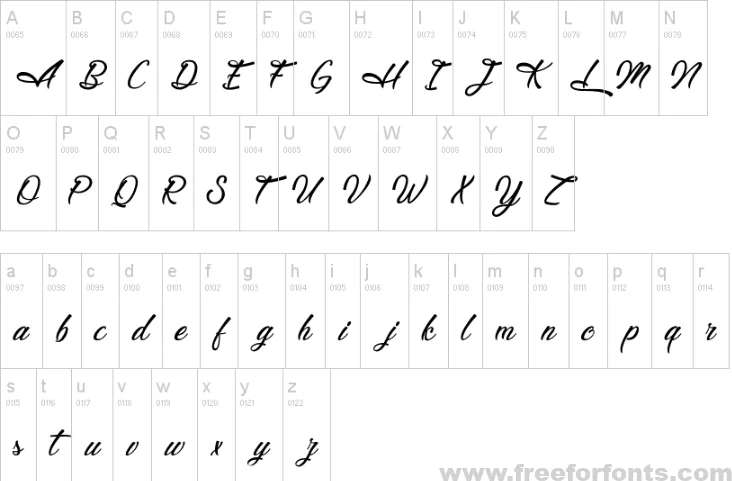
Legendary Hollywood Font
Legendary Hollywood Font is perfect for a wide range of design projects including movie posters, entertainment branding, film festival graphics, theater productions, red carpet event invitations, cinematic logos, showbiz marketing, and glamorous social media content. Its dramatic character makes it an exceptional choice for projects that celebrate the golden age of cinema and the timeless allure of Hollywood elegance.
What makes Legendary Hollywood Font exciting is its stunning ability to capture the grandeur and sophistication of classic Hollywood glamour through typography. The font features elegant letterforms with vintage-inspired details that evoke the golden era of cinema, creating instant nostalgia and cinematic prestige. Its captivating personality radiates star quality and entertainment magic, making it perfect for brands and projects that want to channel the iconic style, drama, and unforgettable charm of legendary Hollywood productions.
Legendary Hollywood Font comes in multiple font families including Regular, Bold, Light, Decorative, Art Deco variations, and ornamental embellishments. These diverse options provide designers with creative flexibility to recreate authentic vintage Hollywood aesthetics while maintaining contemporary design standards across different applications and visual storytelling contexts.